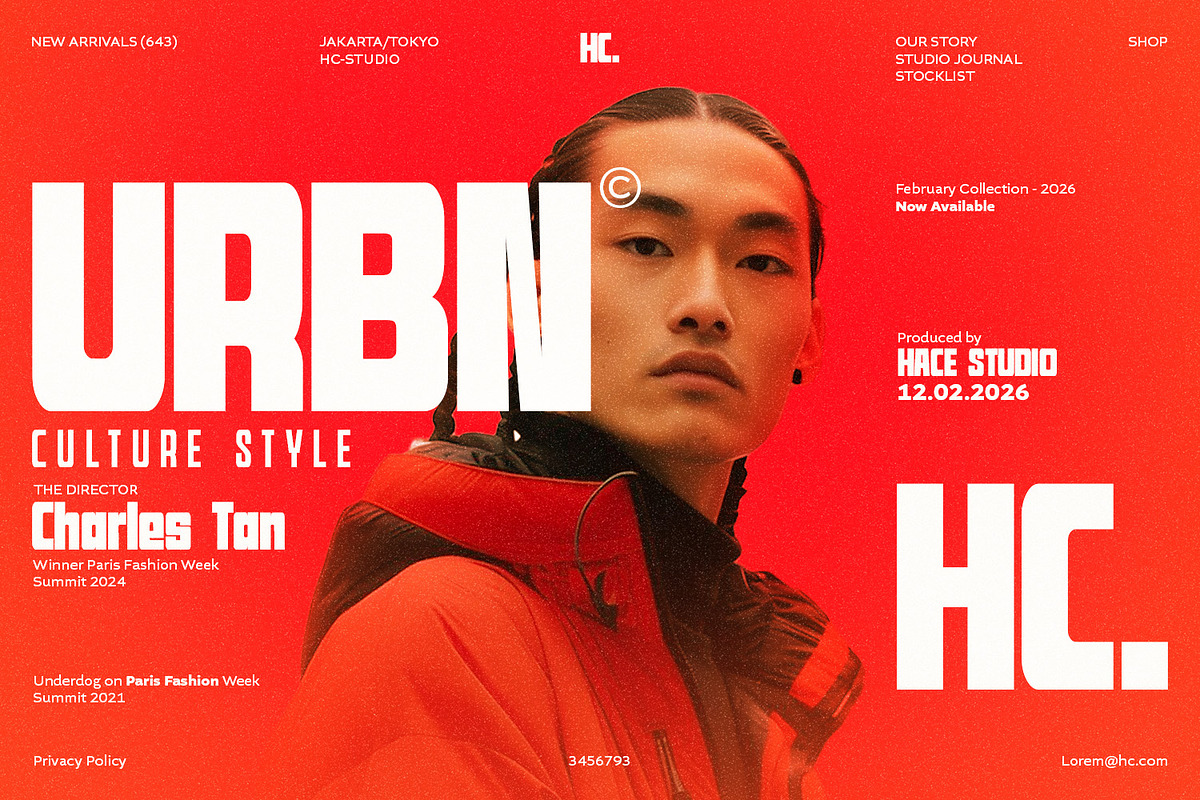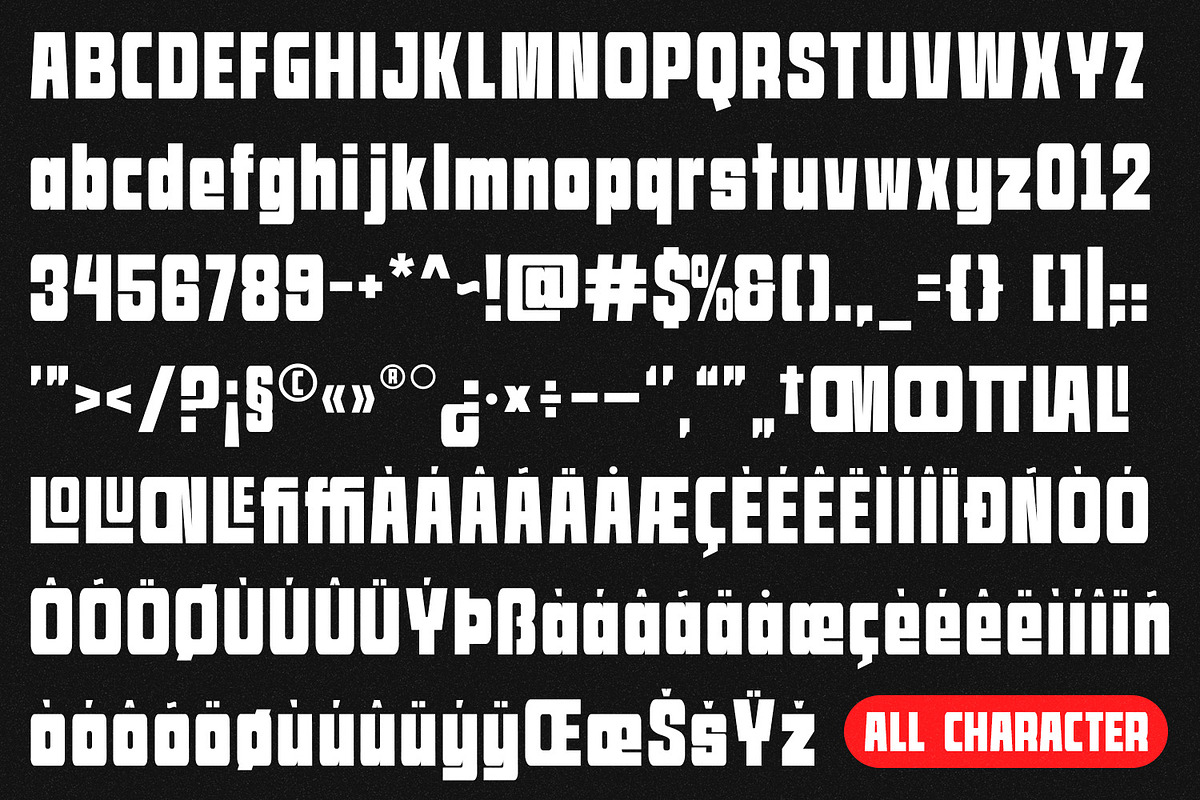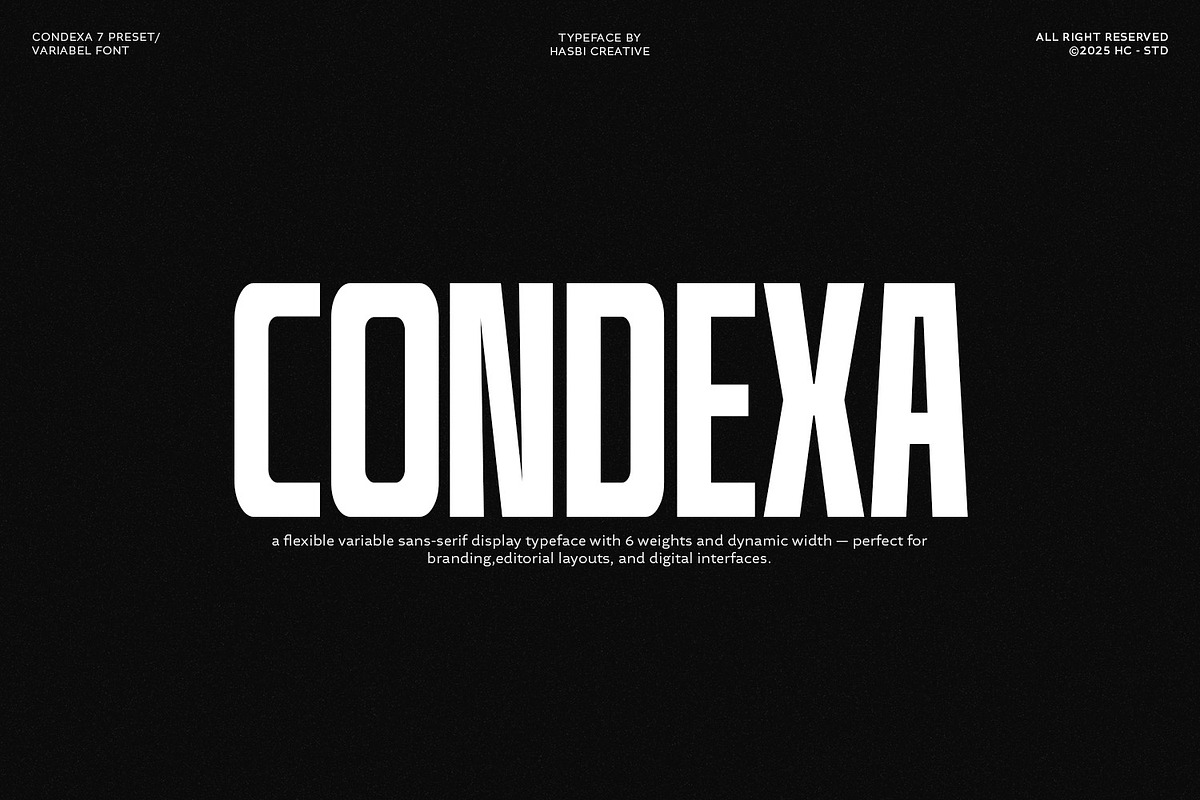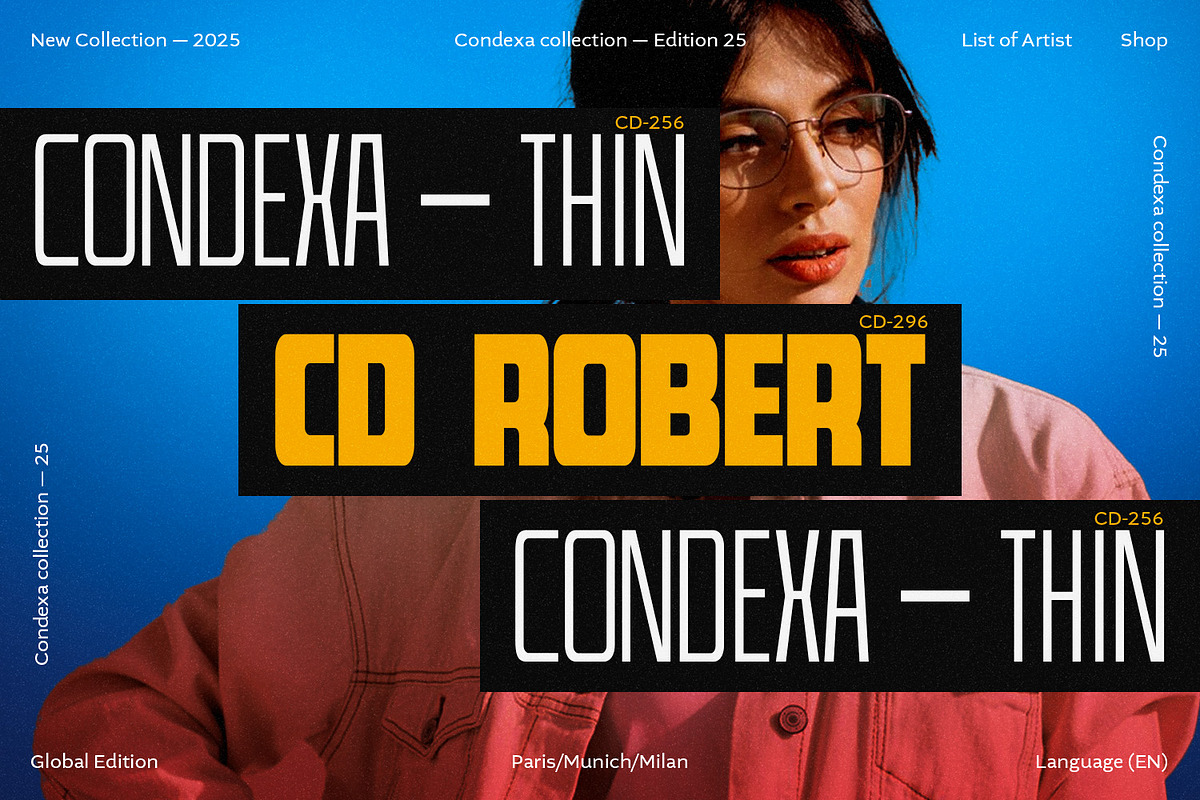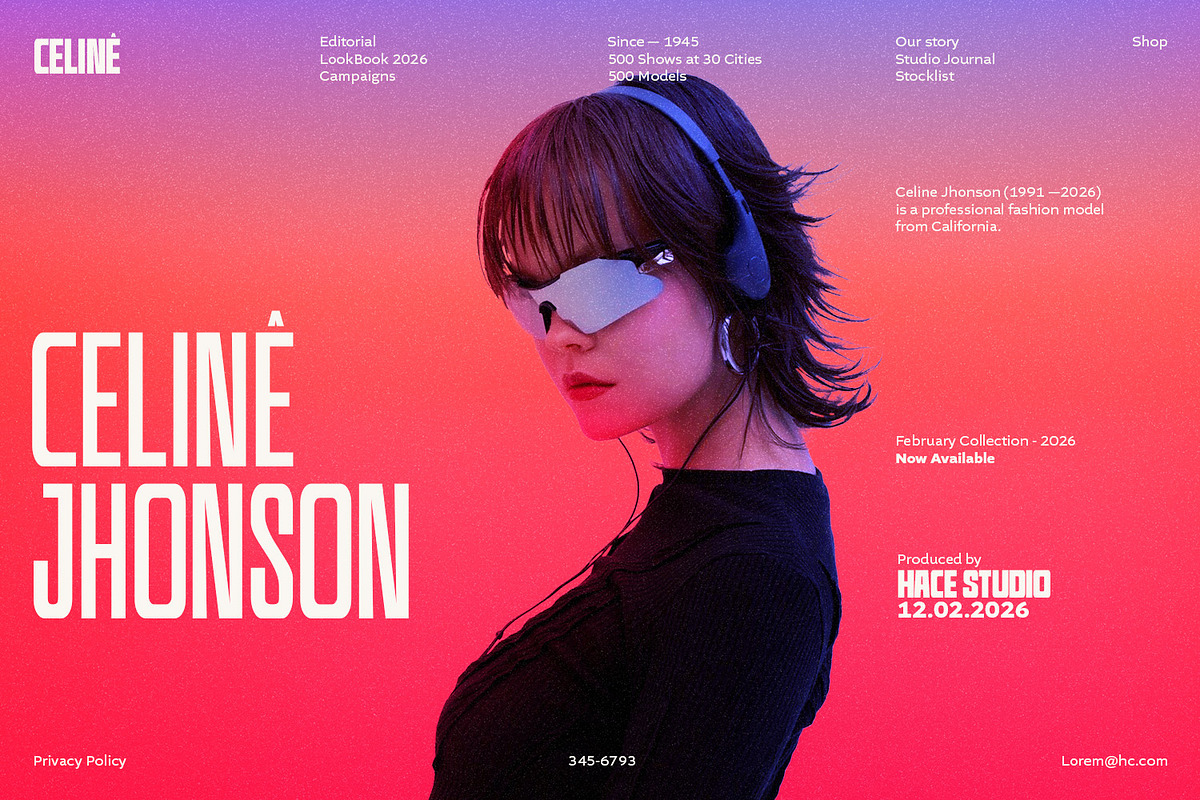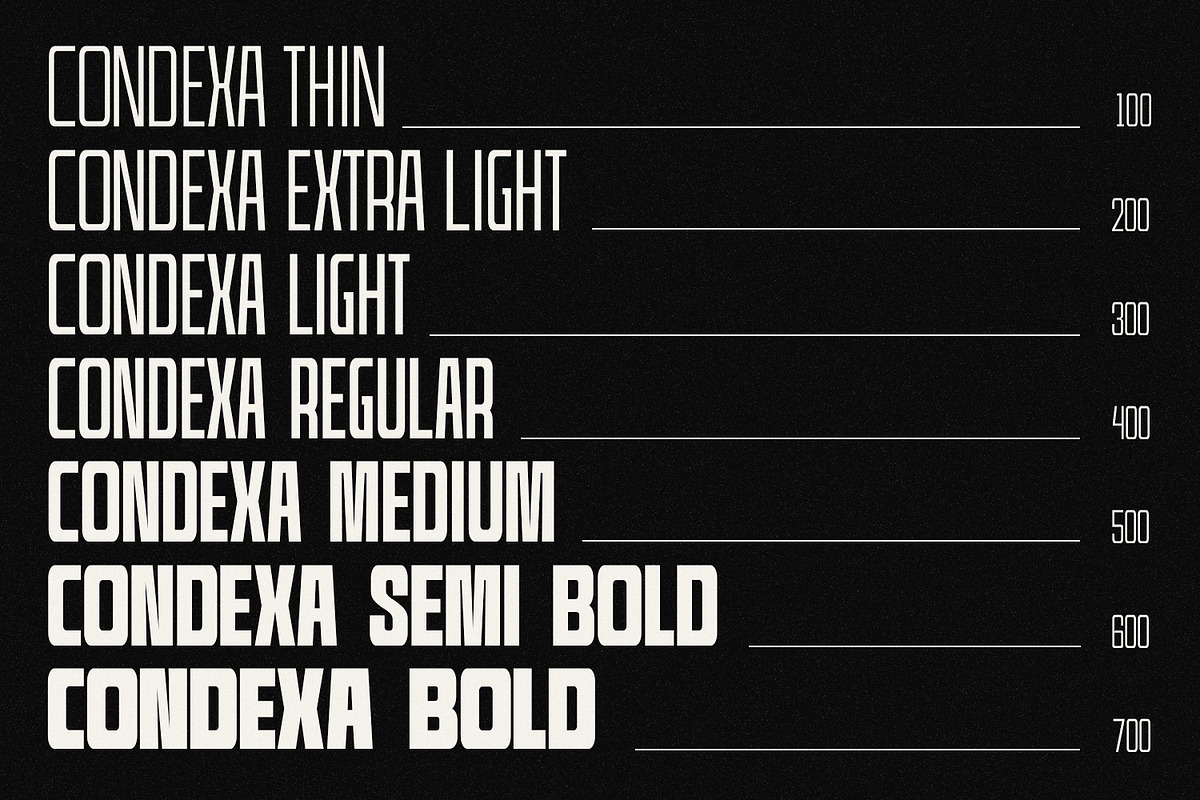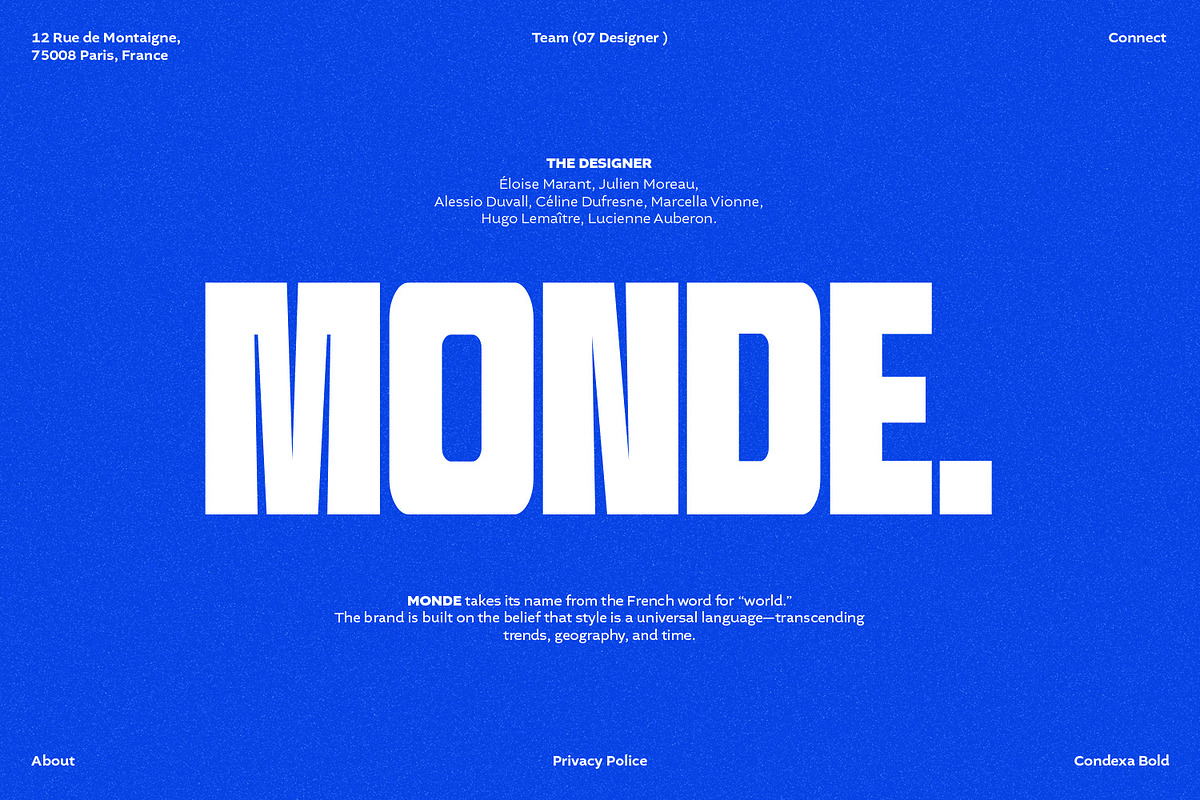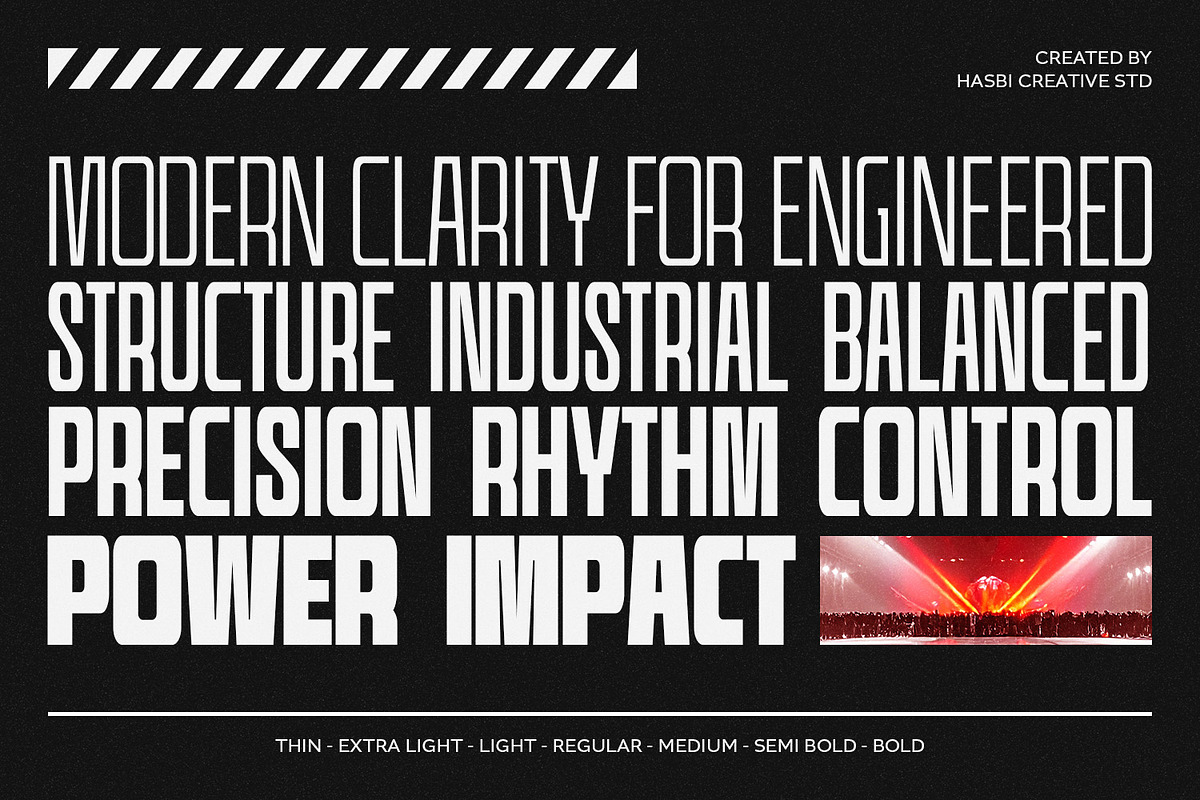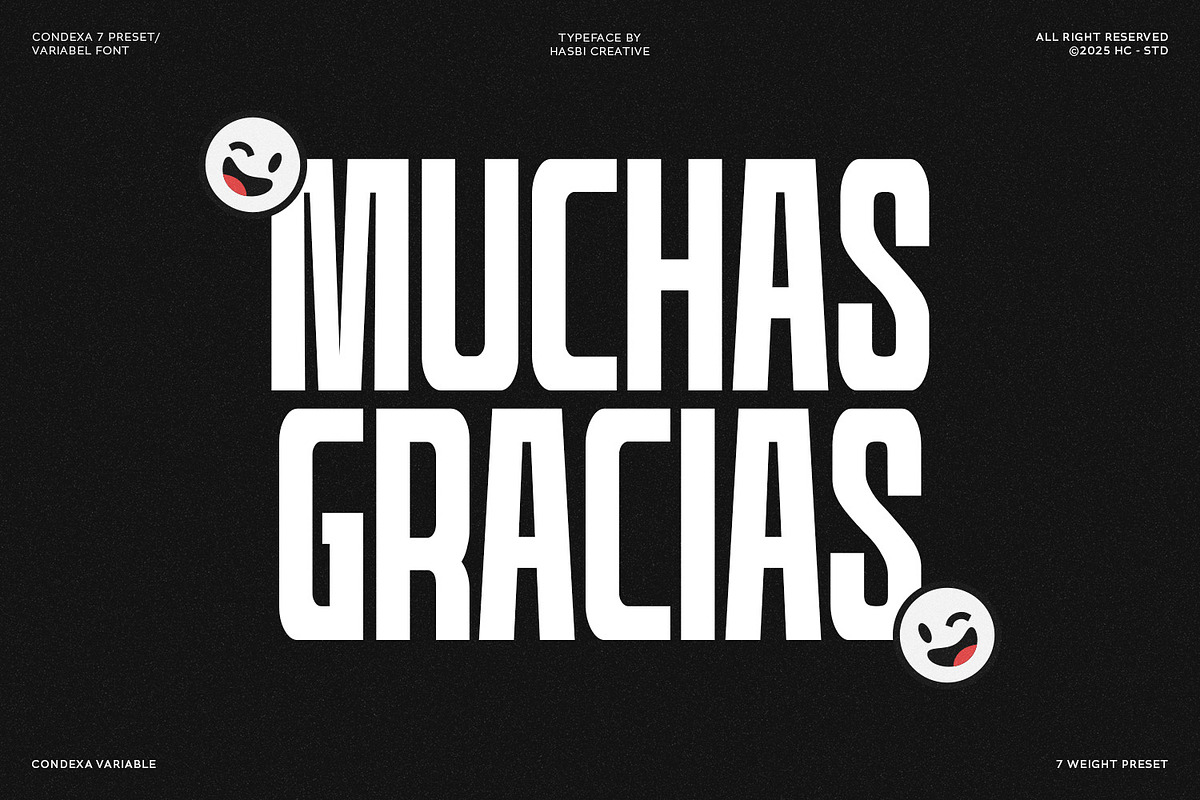
Condexa | Geometric Display Variable
Condexa is a geometric display variable sans-serif font designed to stand out. From condensed thin to wide and bold, this typeface gives you total creative control for editorial layouts, branding, posters, fashion design, and web interfaces.
Its flexible structure and modern style make Condexa a reliable display font for designers who want elegance and impact in one family.
6 static font weights (Thin - Extra Light - Regular - Medium - Semi Bold - Bold)
Uppercase & lowercase
Numerals & punctuation
Multilingual character set
Display-focused design for striking headlines
Variable font technology with smooth width & weight control
Clean geometric shapes for modern layouts
Perfect for branding, fashion, magazines, UI/UX & posters
Professional quality for both print and digital